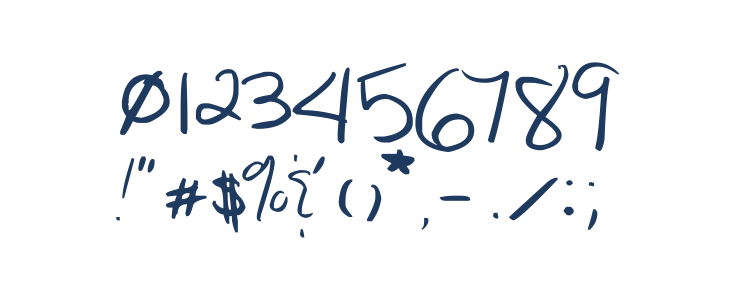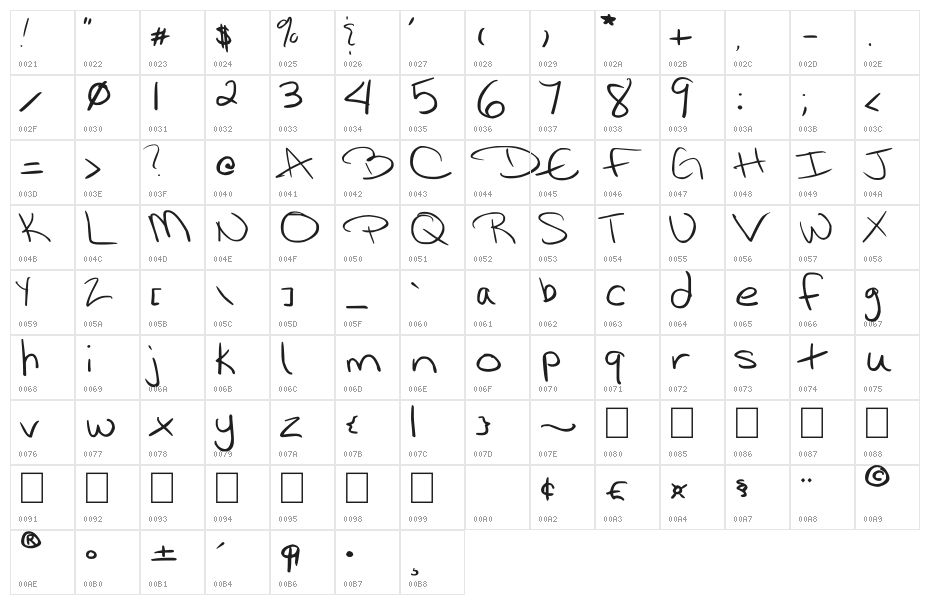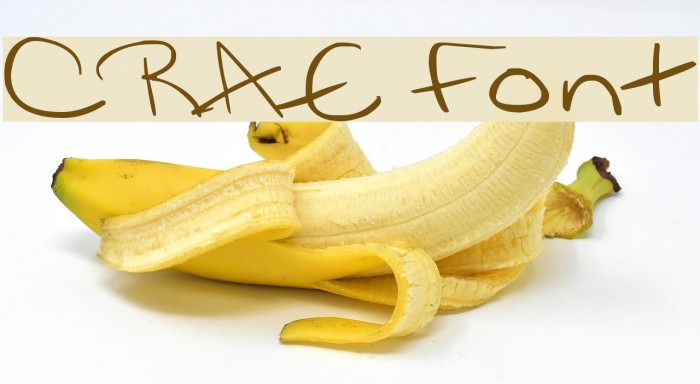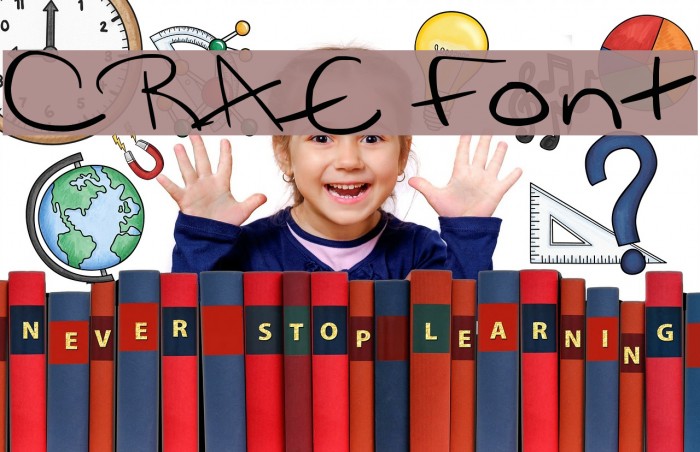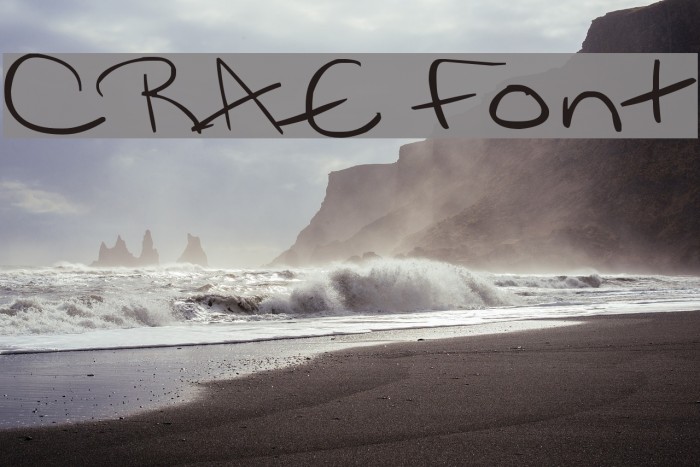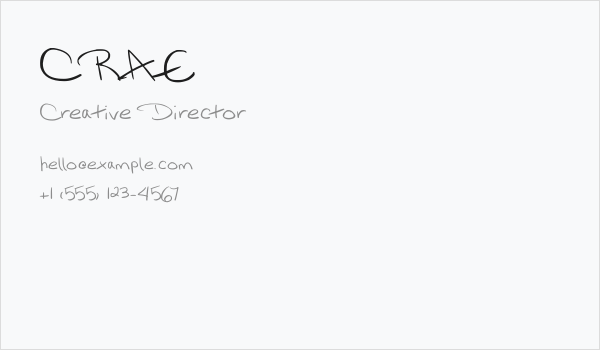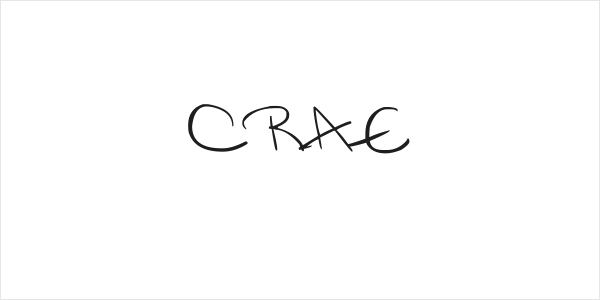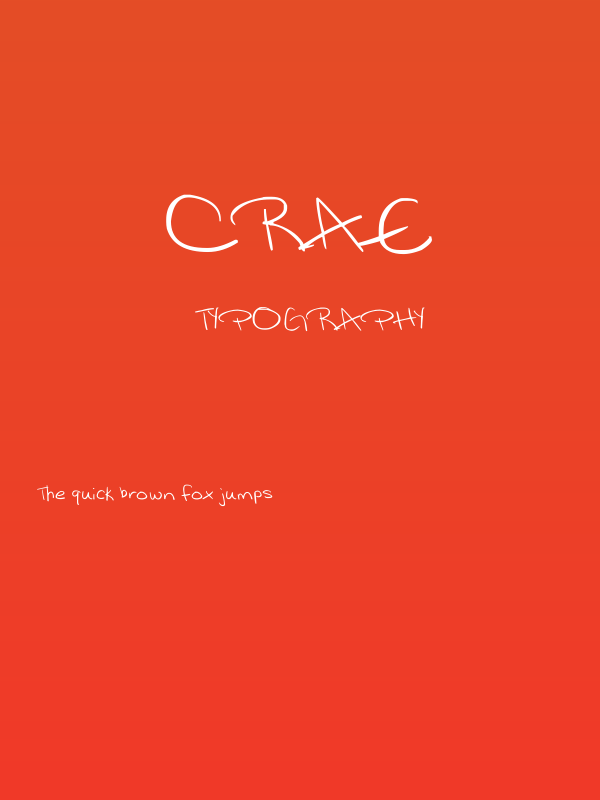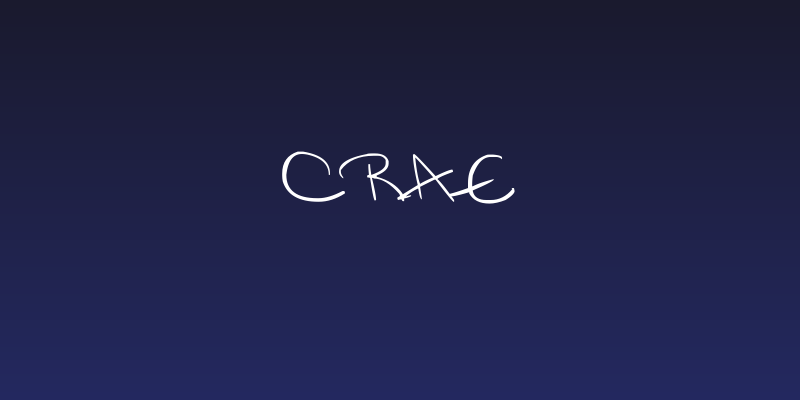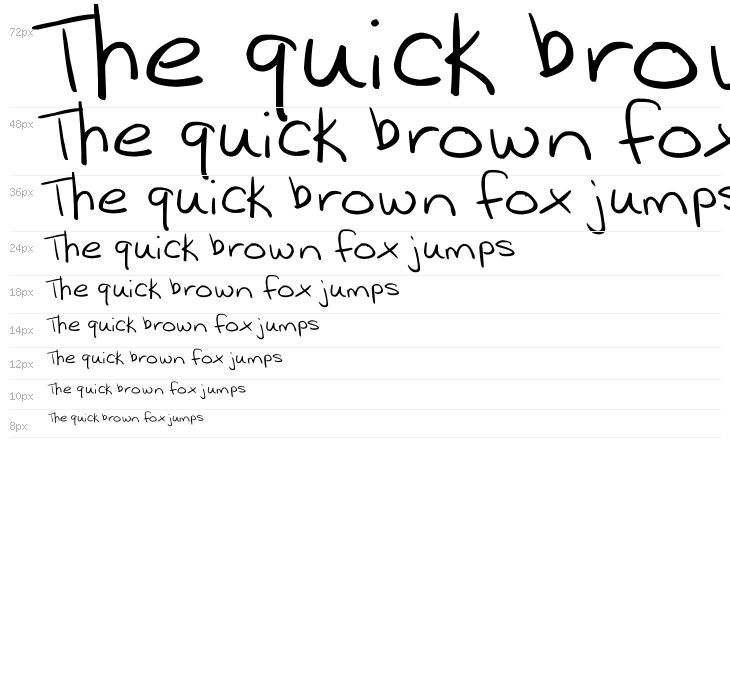
CRAE Font
CRAE Description
This font features a playful, handwritten style with a casual and informal appearance. The letters are slightly slanted, giving it a dynamic and energetic feel. The strokes are smooth and fluid, with a consistent thickness throughout, which adds to its legibility. The uppercase and lowercase letters maintain a cohesive look, while the numbers and special characters complement the overall design. This font is ideal for projects that require a personal touch or a friendly, approachable vibe.
| Overall Style | Casual |
| Use Case | Headlines, Informal text, Creative projects |
| Proposed Projects | Greeting cards, children's books, casual branding, social media graphics. |